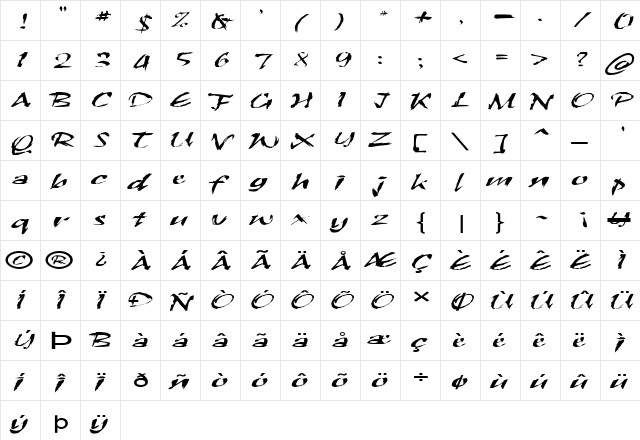
Syras Script Brush Regular
Design Context for Syras Script Brush Typeface
Syras Script Brush brings a calligraphic fluidity to the page — its connecting strokes and expressive curves give it an unmistakably human quality.
Font Pairing: Combine Syras Script Brush with a simple geometric sans for maximum contrast — the tension between flowing curves and clean structure is a classic typographic pairing.
Pro Tip: Pair Syras Script Brush with a clean sans-serif for supporting text. The contrast between fluid script and geometric structure creates an elegant typographic hierarchy.